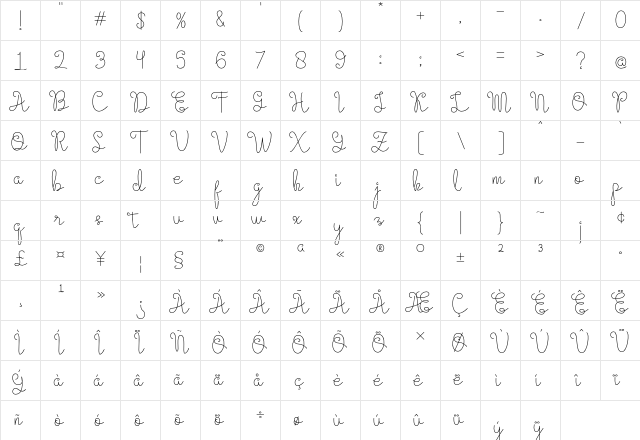
Evangetta ExtLt Regular Font Preview
Evangetta ExtLt Regular
Evangetta ExtLt Regular Font Details
| Foundry | Wondoo Studio Co. |
| Designer | Herya Wildan |
Design Context for Evangetta ExtLt Typeface
Evangetta ExtLt is a composed and adaptable typeface that performs quietly and consistently across a wide range of design contexts.